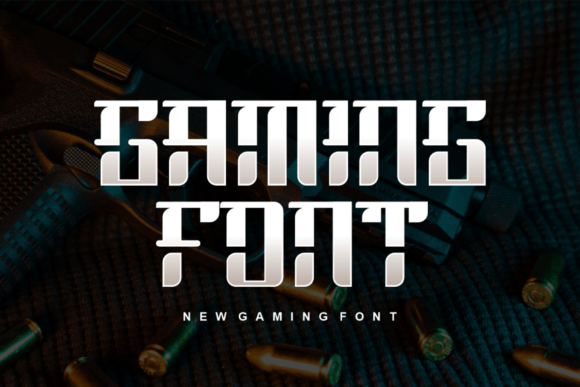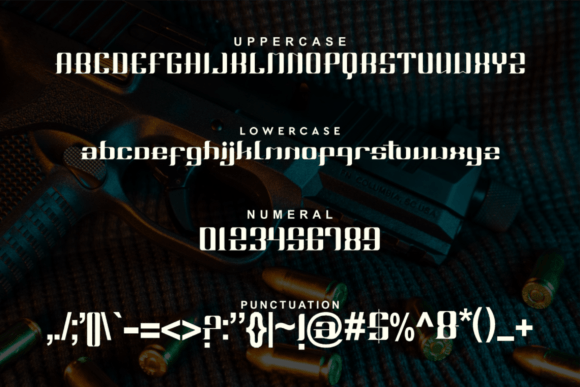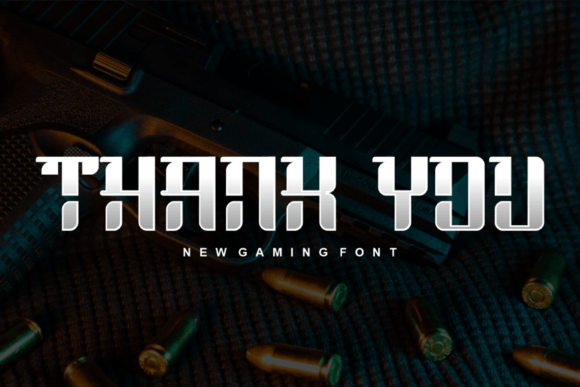
Introduction to Guns Black Font
Have you ever been working on a creative project, pouring your heart and soul into it, and then you stumble upon the perfect font to take it to the next level? That’s exactly what happened to me when I discovered Guns Black Font. Its sleek, modern design immediately caught my attention, and I knew I had to learn more about it.
Guns Black Font is a high-quality display font that can elevate any design project, from a simple poster to a complex branding campaign. Its versatility and authenticity make it a valuable resource for designers, allowing them to create unique and eye-catching designs with ease.
Guns Black Font
- High-quality design resource for creative projects, ideal for use in graphic design, digital art, and publishing.
- Features a sleek, modern design with a transparent background, allowing for versatile use in various applications.
- Unique characteristic: Guns Black Font features a bold, edgy design that’s perfect for projects requiring a strong, urban aesthetic.
Honest Review: Guns Black Font
I recently had the chance to work with the Guns Black Font for a creative project, and I must say it’s been a game-changer. As a designer, I’m always on the lookout for high-quality design resources that can elevate my work, and this font definitely delivers. With a transparent background, it’s incredibly versatile and can be used in a variety of applications.
- ✨ The font’s clean and modern design makes it perfect for minimalist designs.
- ✨ The transparent background allows for seamless integration with any design element.
- ✨ The font is highly customizable, making it suitable for a wide range of creative projects.
However, I did encounter a few limitations while working with the Guns Black Font. The font is a free download, which is great for designers on a budget, but it may not be as polished as some paid fonts.
- ⚠️ The font may not be as comprehensive as some paid fonts, with limited character sets and styles.
- ⚠️ Some users may experience issues with font rendering, especially on lower-end devices.
Overall, I’m impressed with the Guns Black Font and would highly recommend it for designers working on creative projects. While it may have its limitations, its high quality and versatility make it a valuable addition to any design resource library.
To get the most out of Guns Black Font, use it in conjunction with other design elements such as graphics, images, and textures. Experiment with different font sizes, styles, and colors to create a unique and visually appealing design. Consider using a high-quality image or graphic to add depth and interest to your design.
Common Use Cases for Guns Black Font
Guns Black Font is commonly used in creative projects such as logos, posters, and flyers. It can also be used in business presentations, such as PowerPoint or Word documents, to add a touch of sophistication and style. With its high-quality design and transparent background, Guns Black Font is a versatile font that can be used in a variety of design applications.